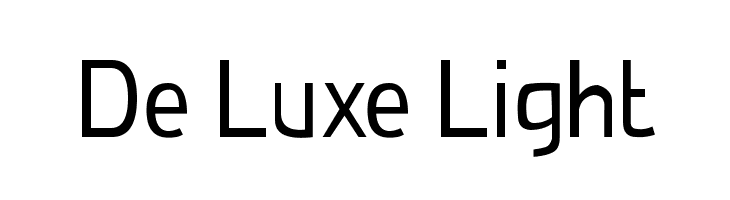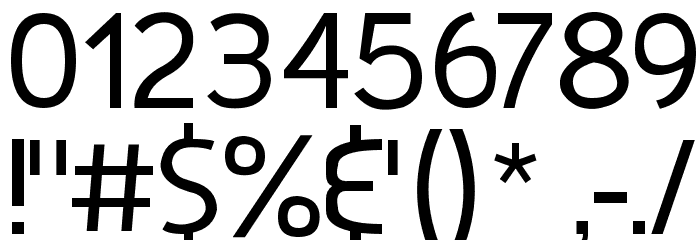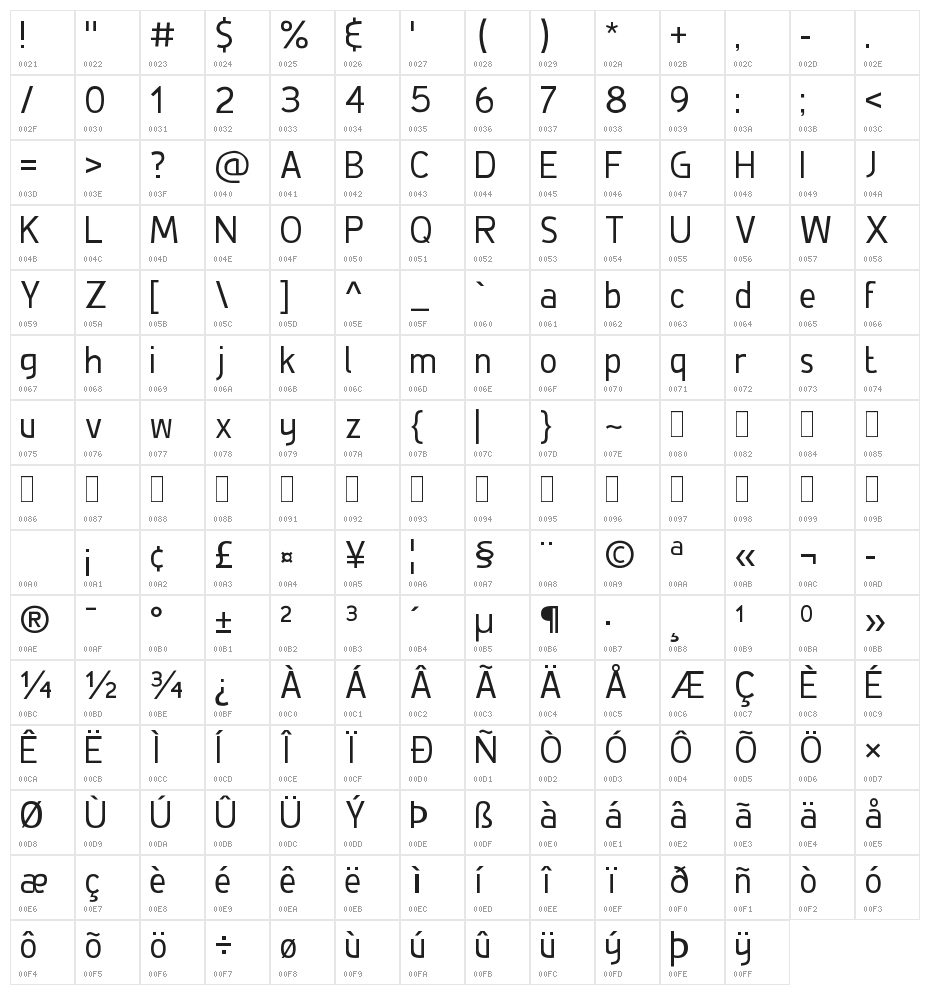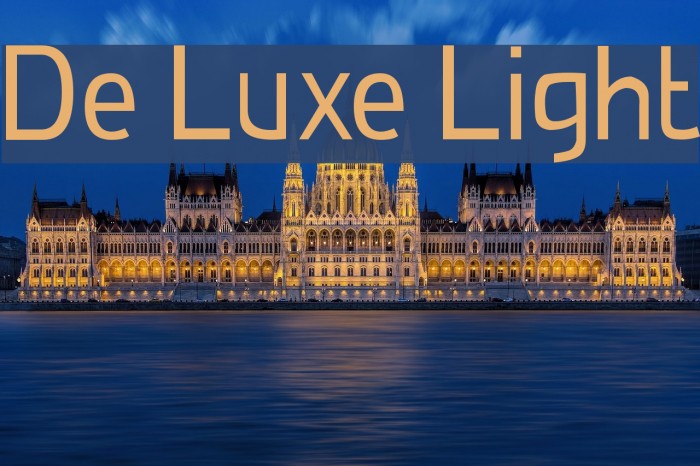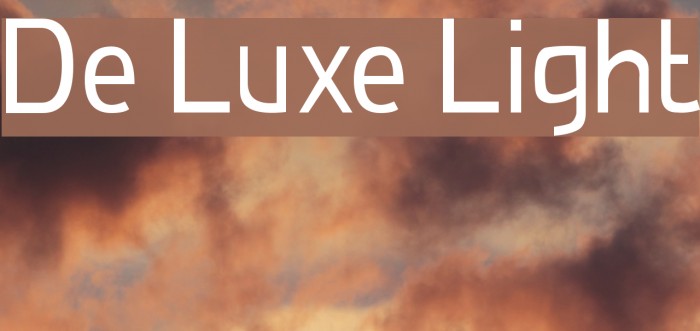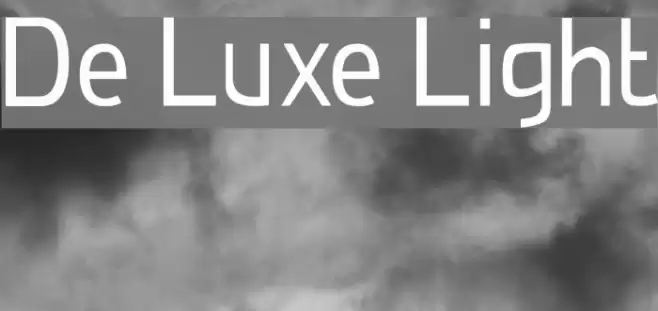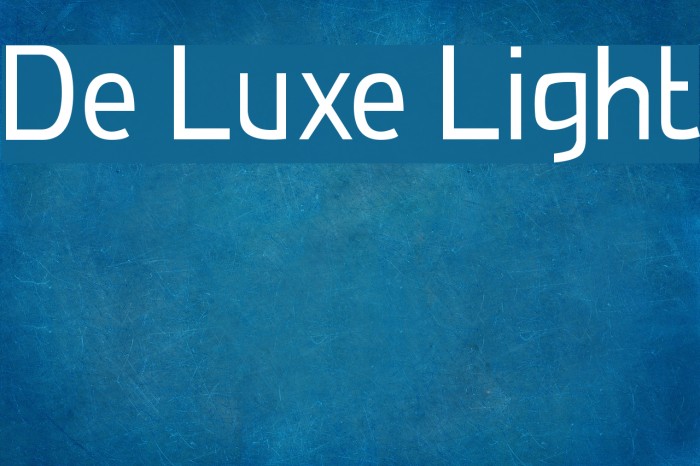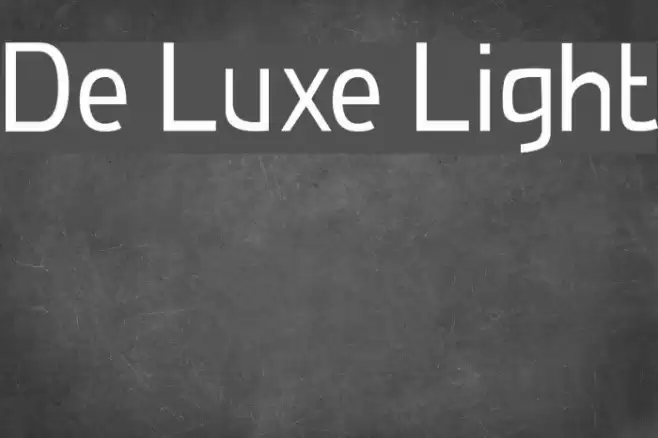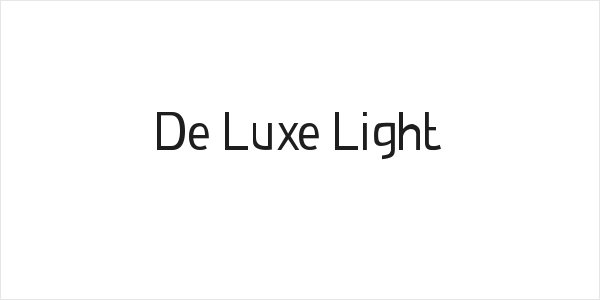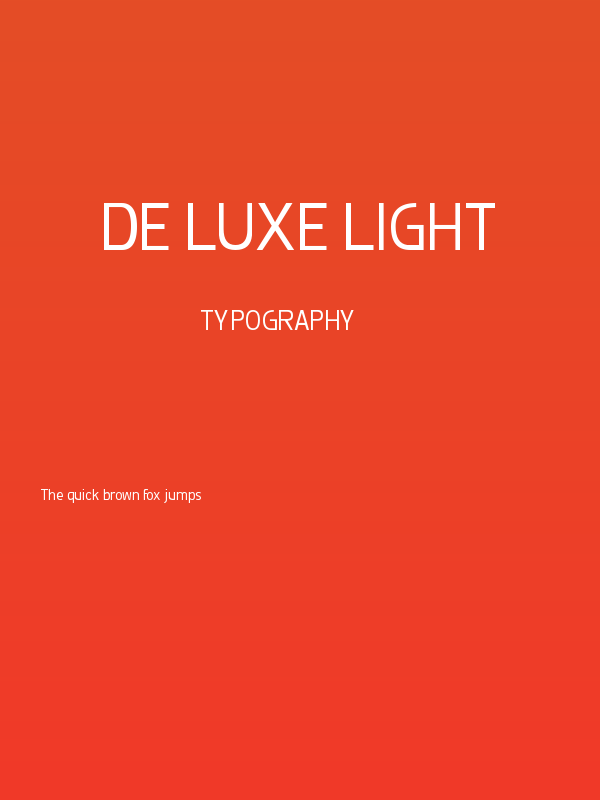
De Luxe Light Font
De Luxe Light Description
This font features a clean and modern sans-serif design with a geometric structure. The characters are well-balanced, offering a uniform appearance that enhances readability. The uppercase letters are slightly taller than the lowercase, providing a distinct hierarchy. The numerals are clear and consistent, making them suitable for various applications. Special characters are designed to match the overall aesthetic, maintaining the font's cohesive look. The font's simplicity and elegance make it versatile for both digital and print media.